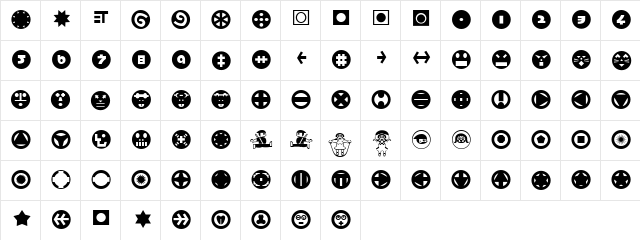
HaMangaIrregularPicturesLL Medium
Design Context for HaMangaIrregularPicturesLL Typeface
HaMangaIrregularPicturesLL is a composed and adaptable typeface that performs quietly and consistently across a wide range of design contexts.